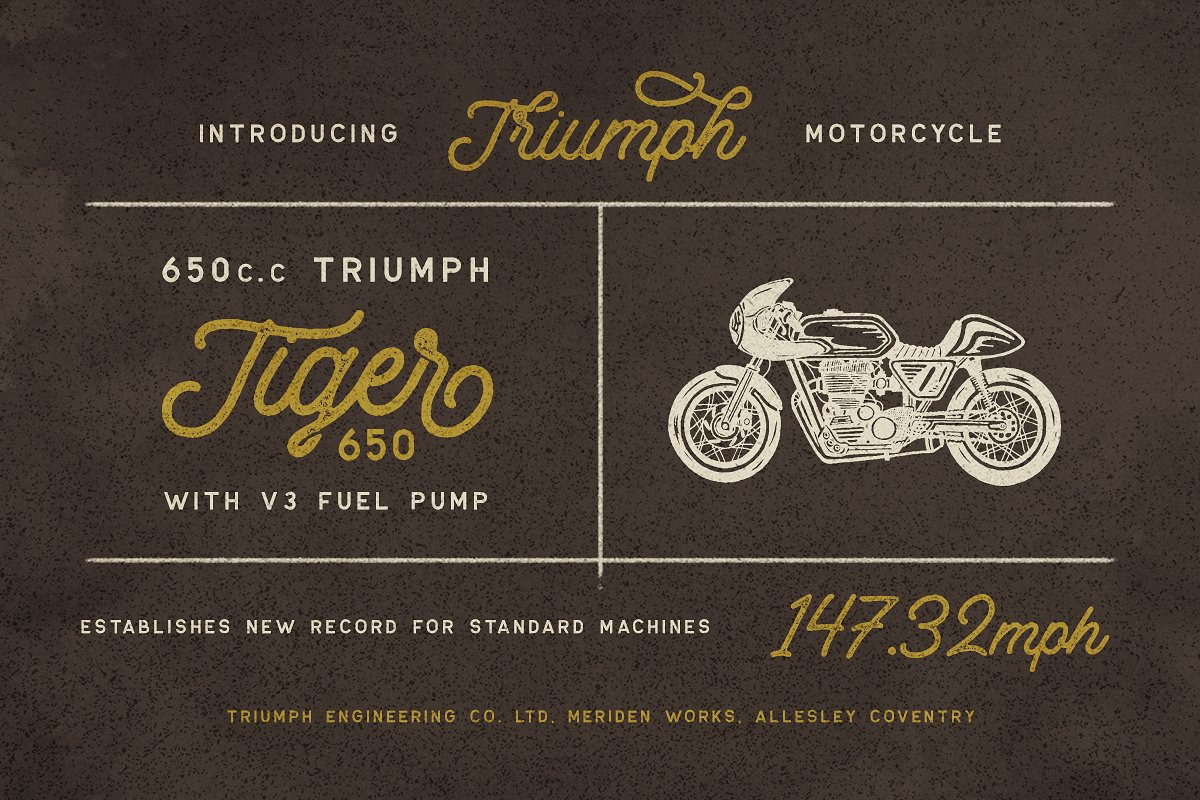
Retrology - a retro monoline script
So classic, so retro... it's Retrology! Introducing, Retrology. This monoline typeface will bring you to the good ol' days with its classic touch!
- Accents (Retrology only)
- Ligatures, stylistic alternate, etc
- Multilanguage
- Perfect for logotype, headline, apparel, poster with vintage feels.